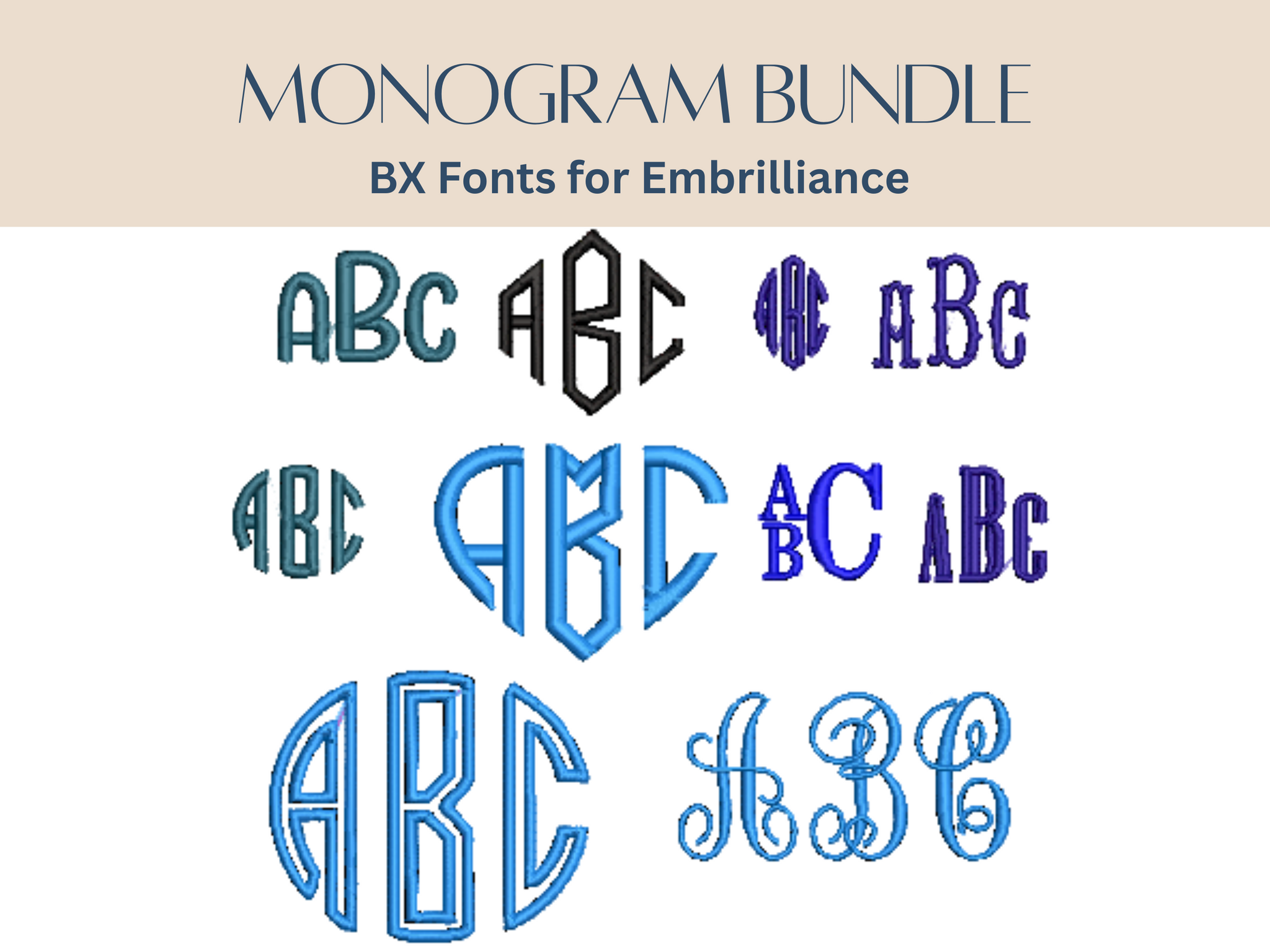
Monogram Lettering Bundle BX Fonts
💎 BX Monogram Font Bundle – 10 Elegant Styles! 💎
Create timeless, personalized embroidery with this exclusive collection of 3-letter monogram BX fonts. Designed for versatility and style, this bundle includes 10 classic monogram designs in a variety of sizes, perfect for everything from heirloom projects to everyday gifts.
✔️ Casual – 1, 1.5, 2, 2.5 and 3 inch
✔️ Circle Appliqué – 2.5, 3 and 3.5 inch
✔️ Circle – 1 and 2 inch
✔️ Classic Oval – 1 and 1.5 inch
✔️ Diamond – 1 inch
✔️ Engraved – 1, 1.5, 2, 2.5 and 3 inch
✔️ Fishtail – 1, 1.5, 2, 2.5 and 3 inch
✔️ Heart – 2, 3 and 4 inch
✔️ Stacked – 1, 2 and 3 inch
✔️ Vine – 1.5, 2, 2.5, 3, 3.5 and 4 inch
Whether you prefer sleek and modern, ornate and traditional, or playful and fun, this set gives you the perfect monogram style for every occasion.